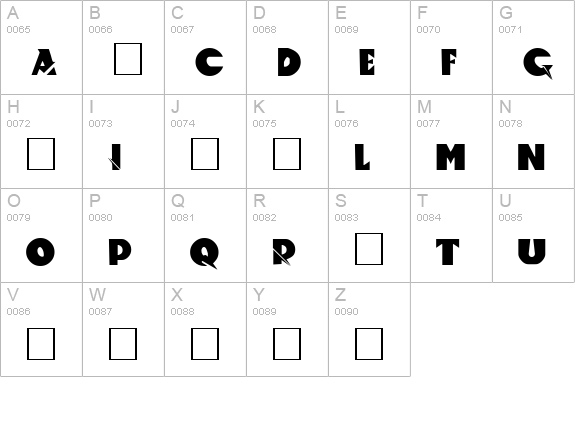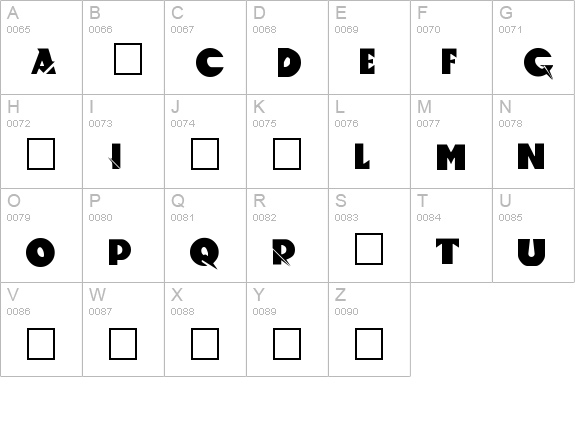
ACCELERATOR Font Details
ACCELERATOR font is a sleek and modern typeface that exudes energy and dynamism. Its bold and sharp design makes it perfect for creating impactful headlines, signage, and branding materials. With its unique geometric shapes and clean lines, ACCELERATOR font is sure to grab attention and leave a lasting impression. And the best part? ACCELERATOR font is available for free download at FontsMarket.com! Whether you're a designer looking to add a contemporary edge to your projects or a business in need of a powerful visual identity, this font is the perfect choice. Don't miss out on the opportunity to elevate your designs with the striking and versatile ACCELERATOR font - get your free download today!